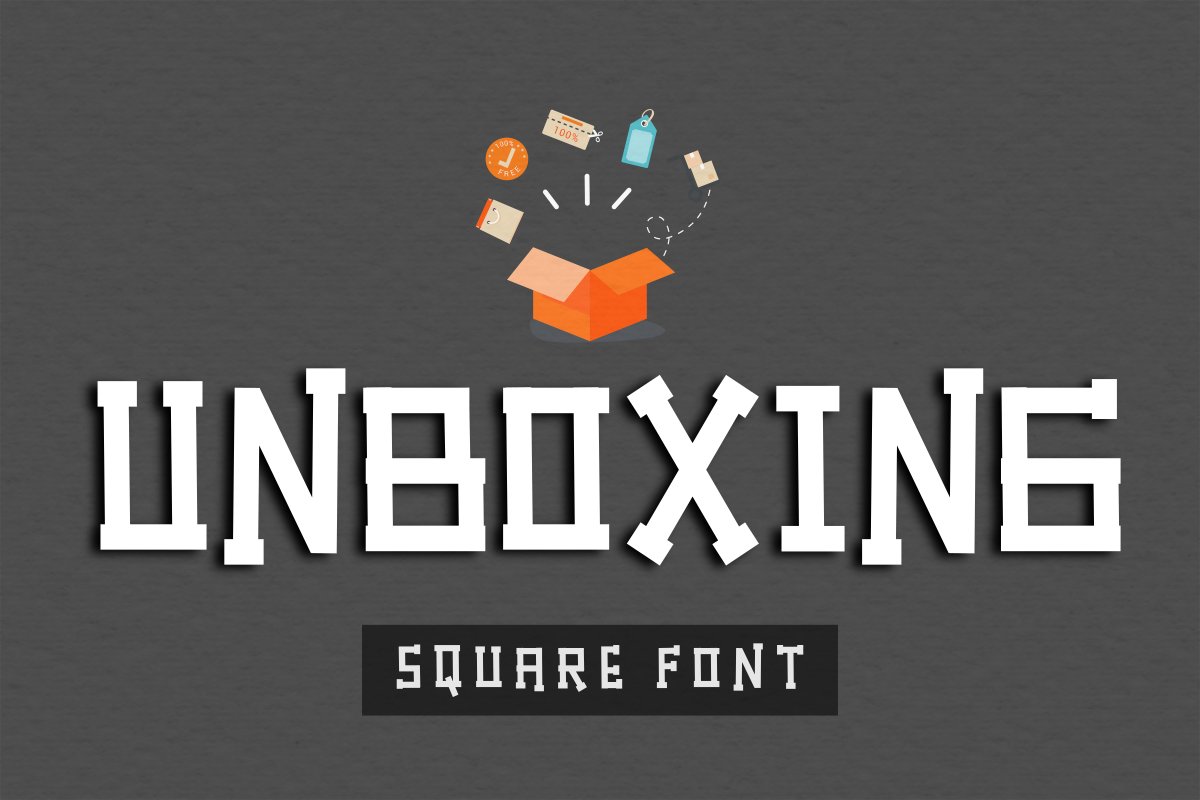
Unboxing
Introducing Unboxing - square display font.
Suitable for posters, logos, book titles, product packaging, cartoon, comics, social media and many more!
Multilingual Support.